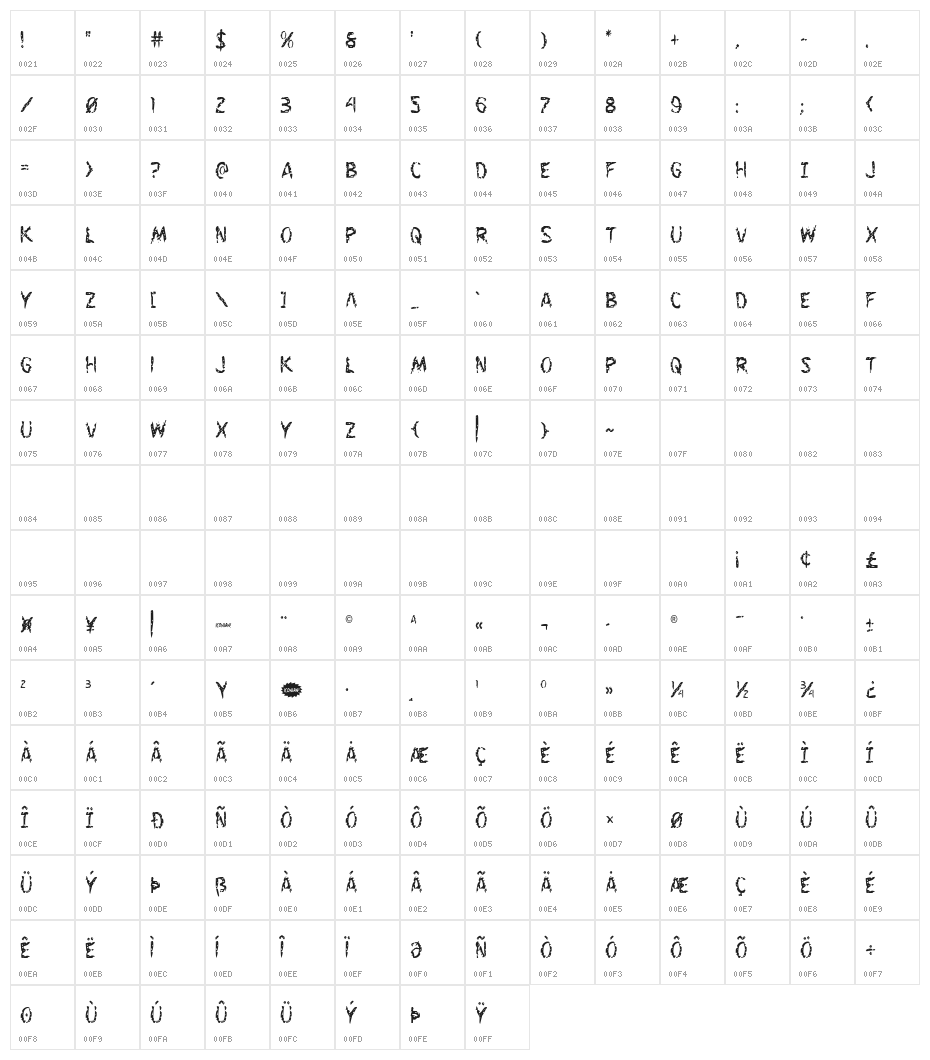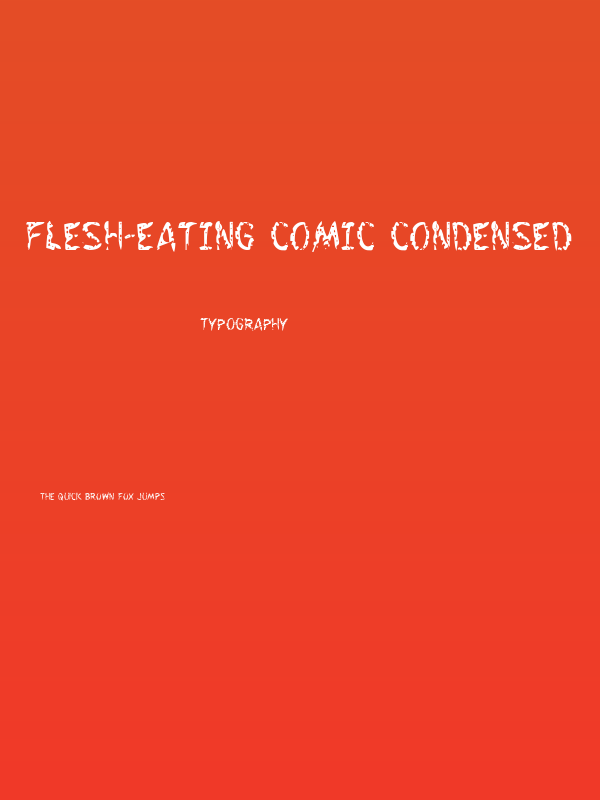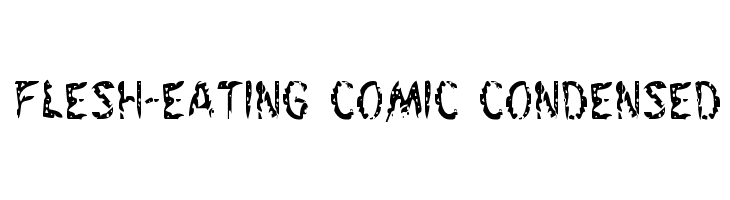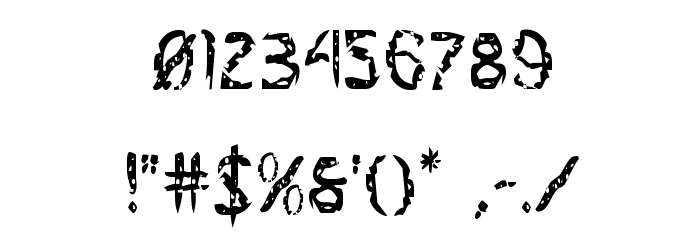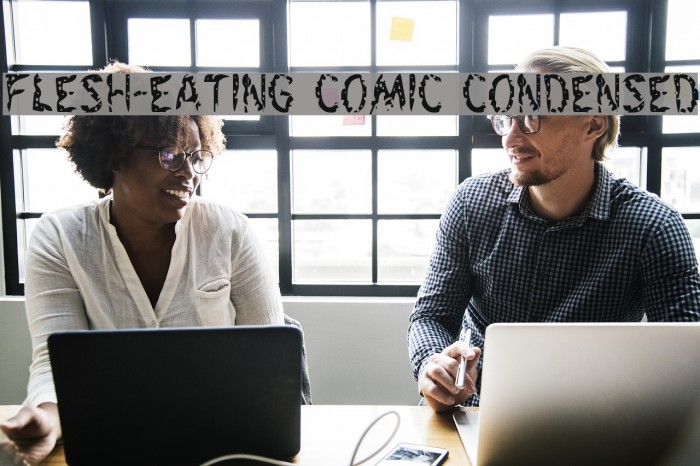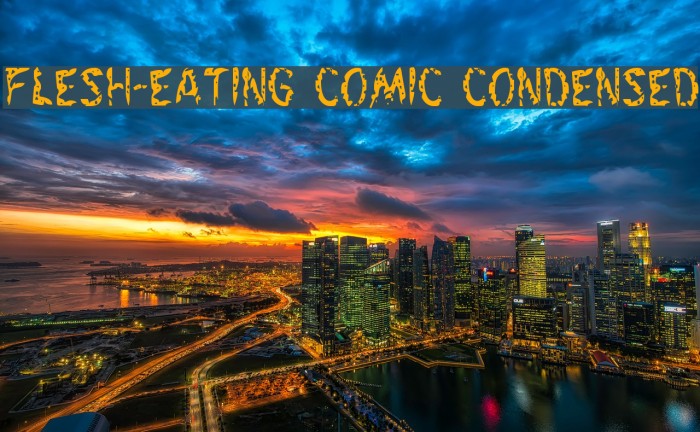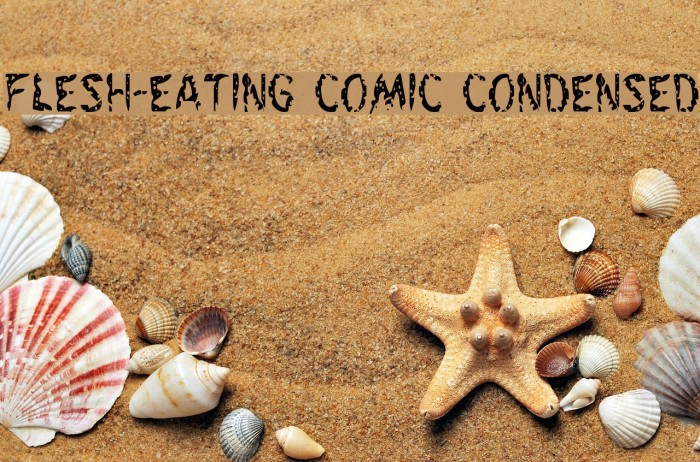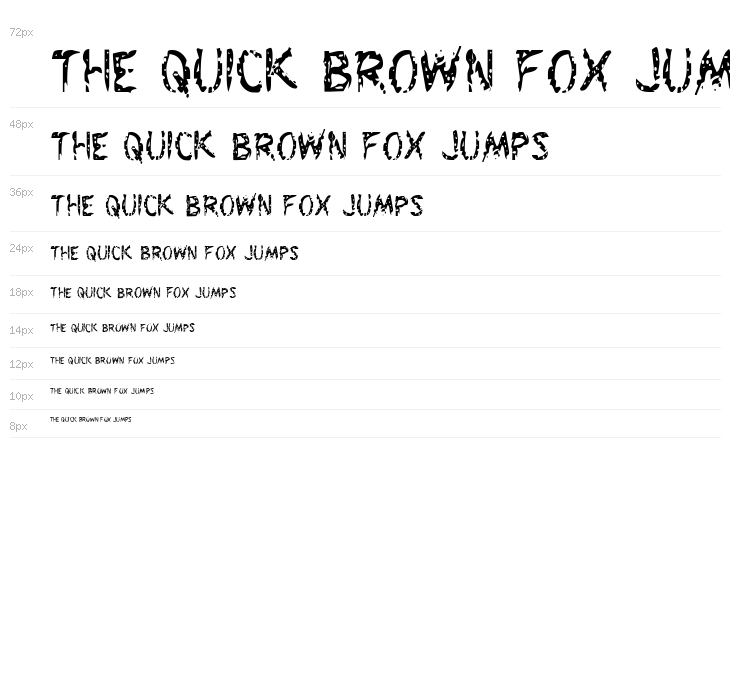
Flesh-Eating Comic Condensed Font
Flesh-Eating Comic Condensed Description
This font features a distressed and eroded style, giving it a unique, grungy appearance. The characters appear as if they are partially eaten away, creating a dramatic and eye-catching effect. The uppercase and lowercase letters maintain a consistent design, with jagged edges and irregular shapes that contribute to its chaotic aesthetic. The numbers and special characters follow the same theme, ensuring a cohesive look across all elements. This font is perfect for projects that require a bold, unconventional look, such as horror-themed designs or edgy branding.
| Proposed Projects | Ideal for horror-themed designs, edgy branding, posters, and album covers. |